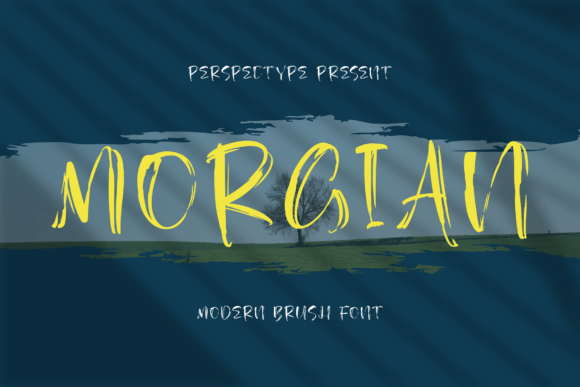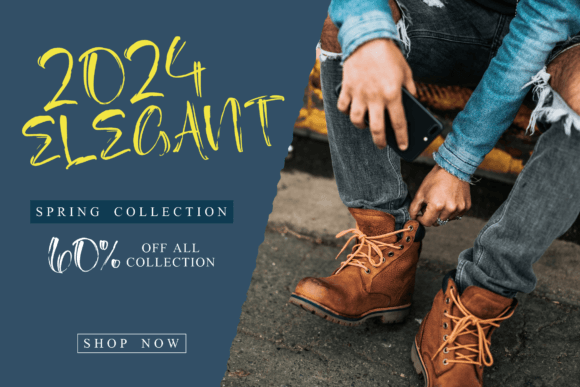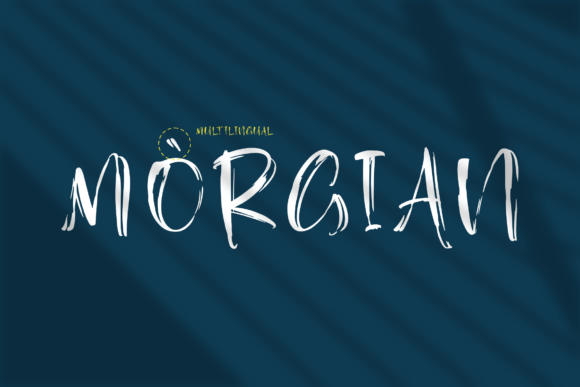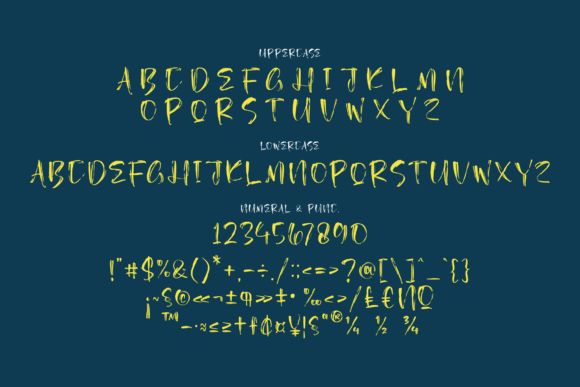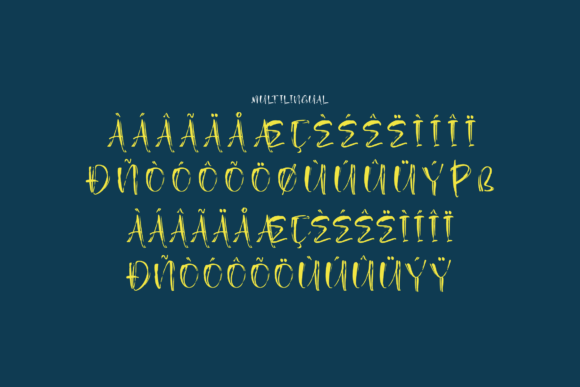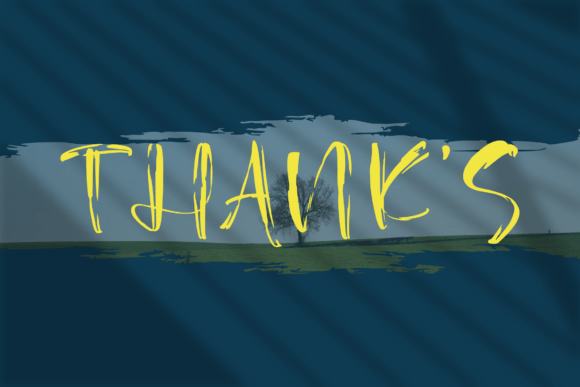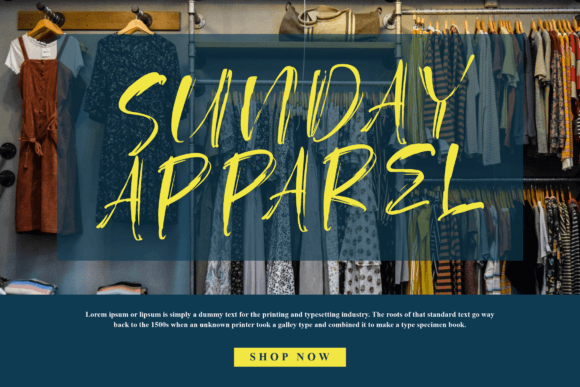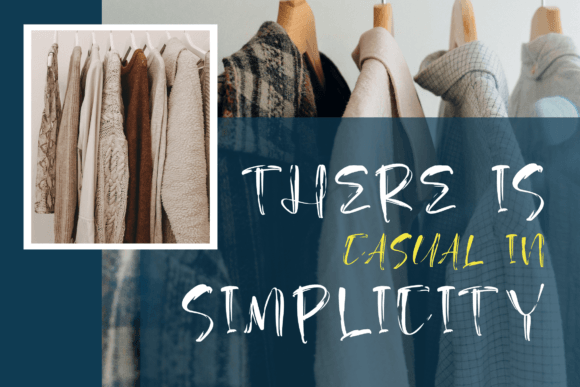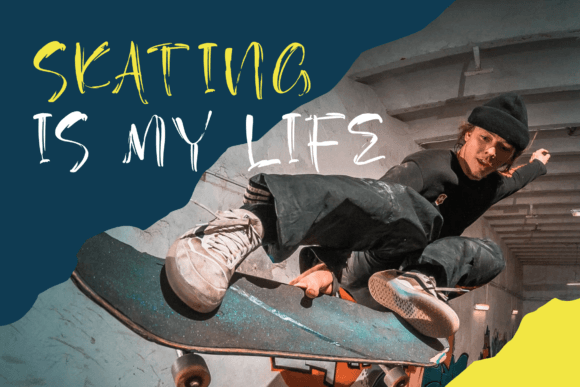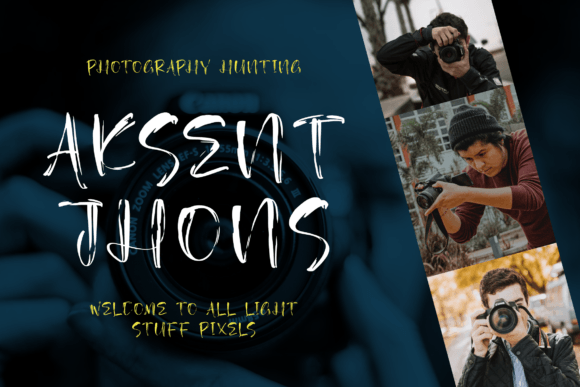
Morgian Font
About Morgian Font
“Morgian – Modern Brush Font” is a versatile typeface suitable for a wide range of design projects. This modern brush font can enhance the visual appeal of various creative endeavors, making it a valuable asset for designers. Whether you’re working on logos, branding projects, homeware designs, product packaging, mugs, quotes, posters, shopping bags, t-shirts, book covers, name cards, invitation cards, greeting cards, labels, photography, watermarks, special events, or any other lovely projects that require a beautiful script taste, “Morgian” is designed to meet your needs.
The font’s modern brush style brings a contemporary and artistic touch to your designs, adding a sense of authenticity and character. It is well-suited for projects that seek to stand out and make a visual impact.
In the world of design, fonts play a crucial role in conveying style, mood, and visual identity. “Morgian – Modern Brush Font” excels in these aspects by offering a script style that is both modern and expressive. Its aesthetics infuse your designs with a sense of creativity and artistry, making them engaging and memorable.
In summary, “Morgian – Modern Brush Font” is a versatile and beautiful design tool that can enhance a wide array of projects. Its modern brush style is ideal for designers seeking to add a contemporary and artistic flair to their work. Whether you’re an experienced designer or just starting your creative journey, “Morgian” is the font that can help you create designs that are both striking and beautiful.